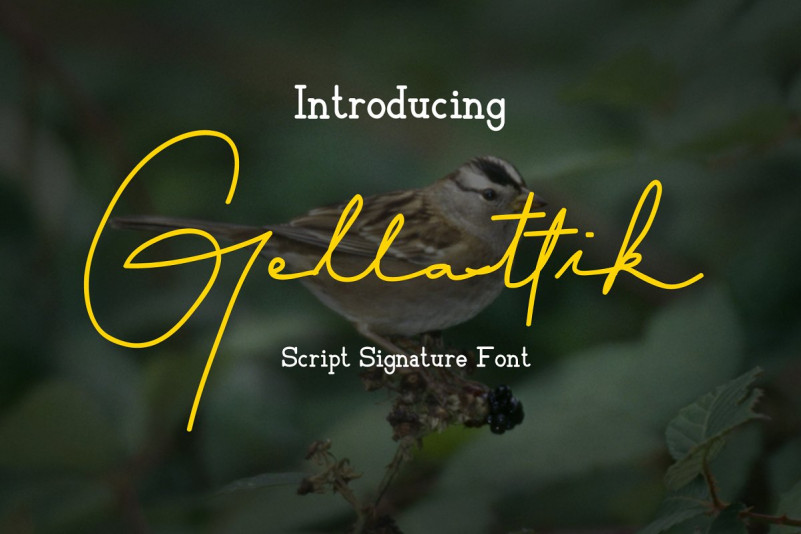
Gellattik Signature Font
Gellattik Signature Font – Free Demo
A modern signature font, designed and shared by AnomaliDesign. Introducing Gellattik Font. Gellattik Script signature – a new modern & fresh script with a handwritten and script style make this font looks elegant, natural, stylish and perfect for any awesome projects that need handwriting taste.
Gellattik would perfect for photography, watermark, social media posts, advertisements, logos & branding, invitation, product designs, label, stationery, wedding designs, product packaging, special events or anything that need handwriting taste.